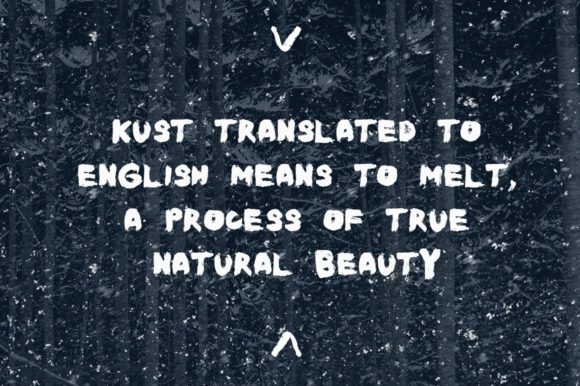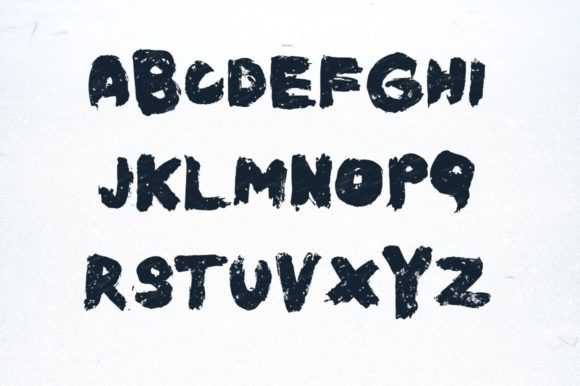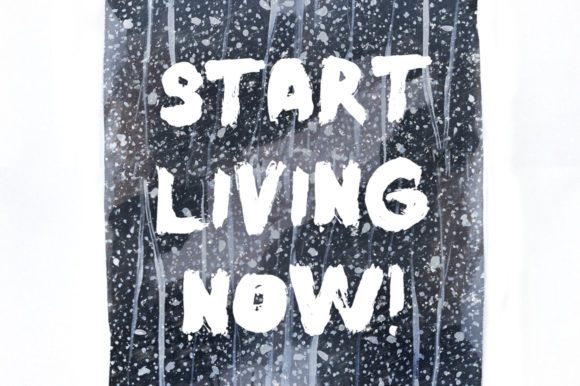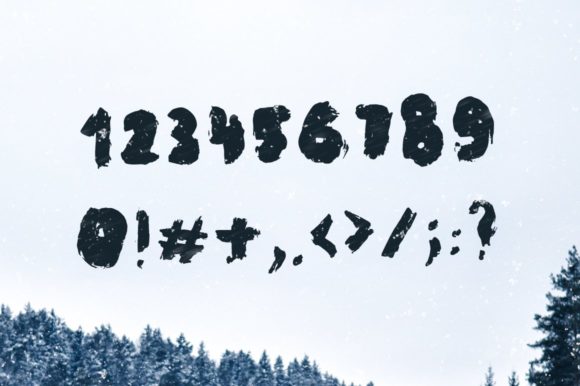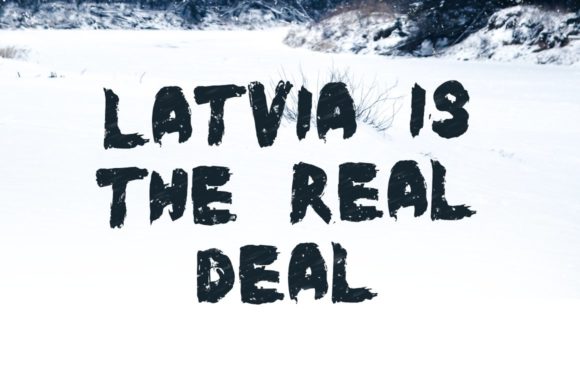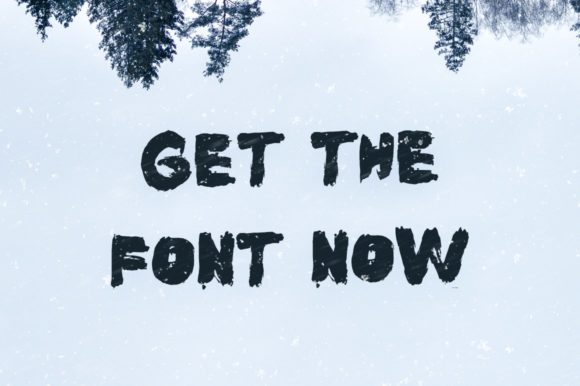
Introduction to Kust Font
Kust is a bold and chunky handwritten font, created with the help of a thick brush pen.
Fall in love with its incredibly unique style and use it to create spectacular designs .
Key Features of Kust Font
Why Choose Kust Font?